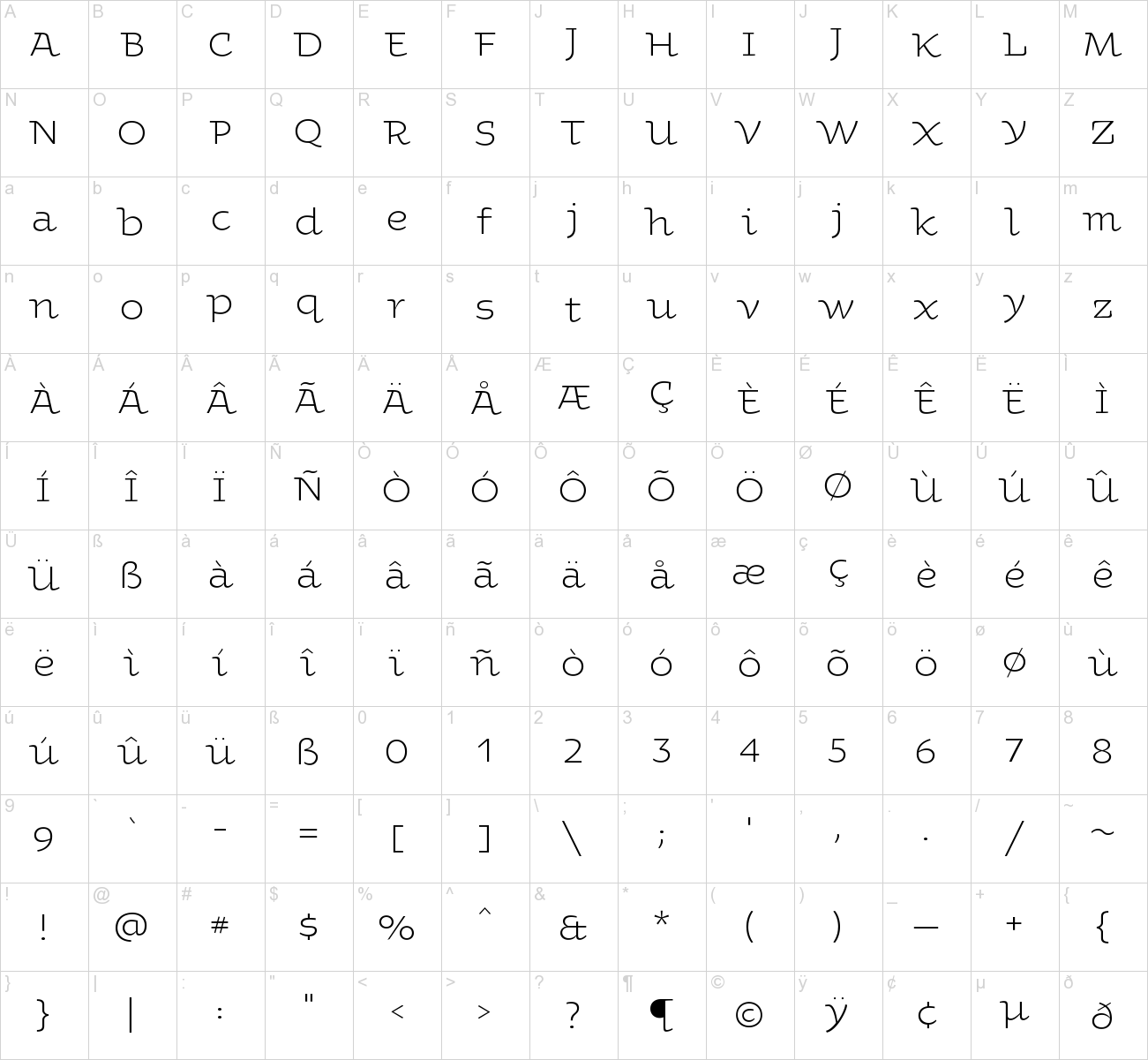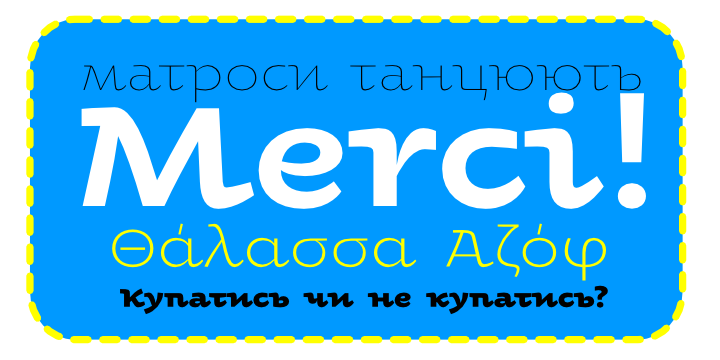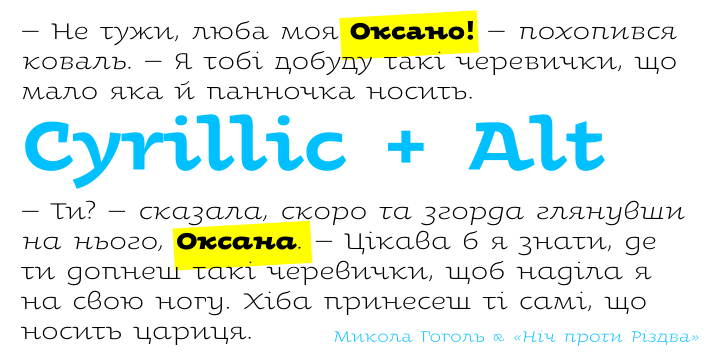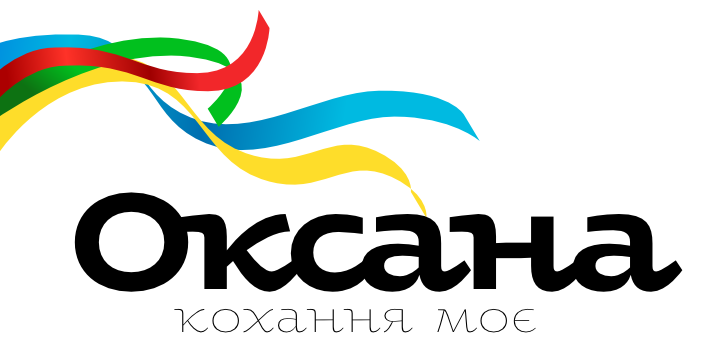
Oksana Font Family
Oksana is a Ukrainian female name. As a true native Ukrainian, this semi-serif type family has a strong structure, but soft and friendly nature. In six weights from thin to heavy it is perfect for titles and short texts lines.